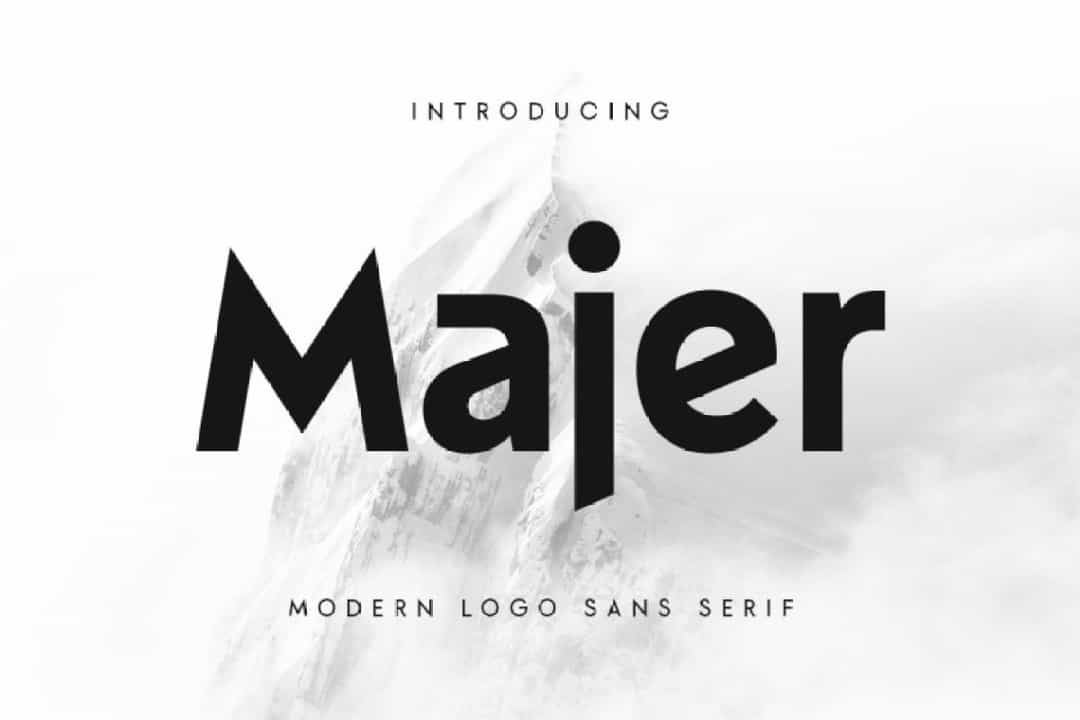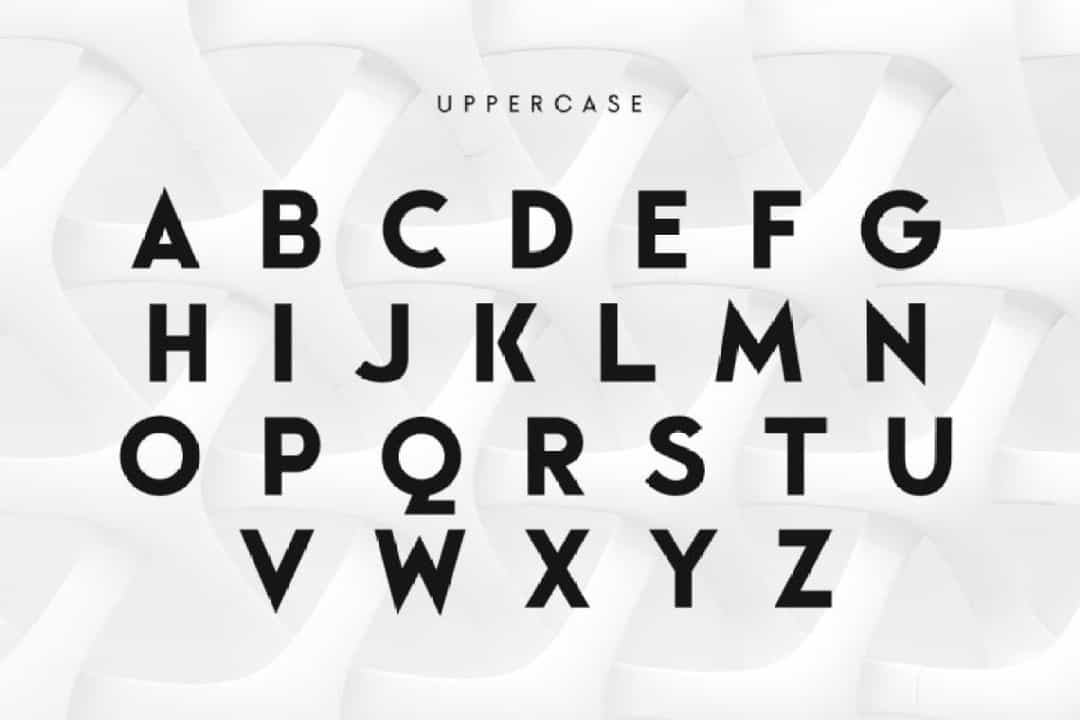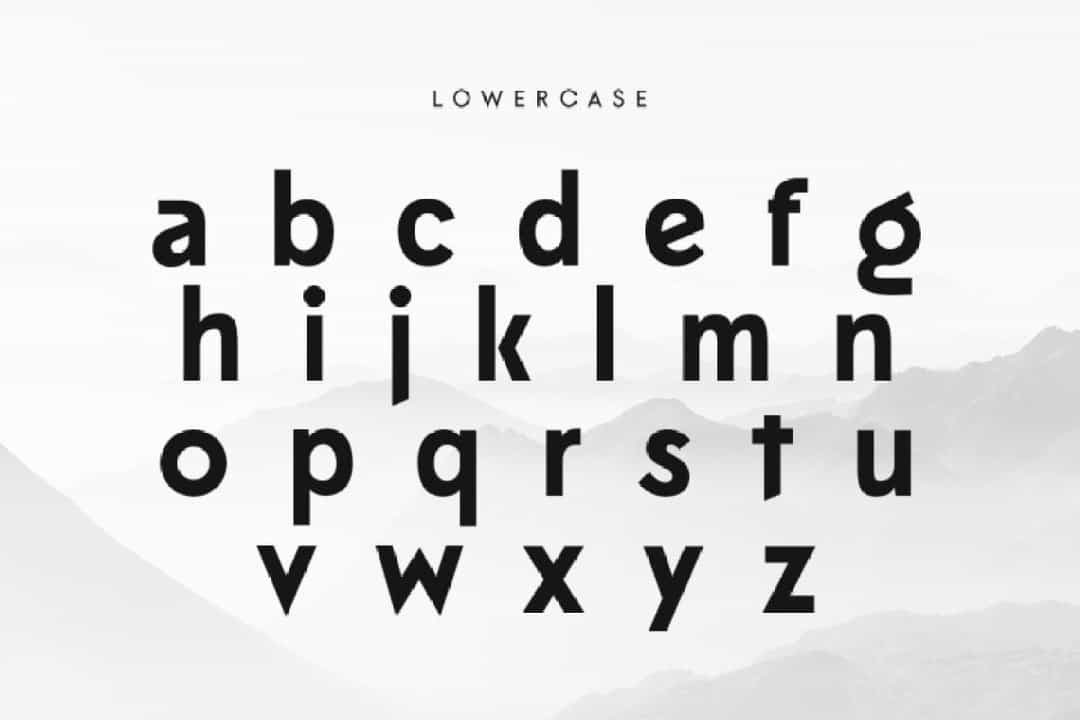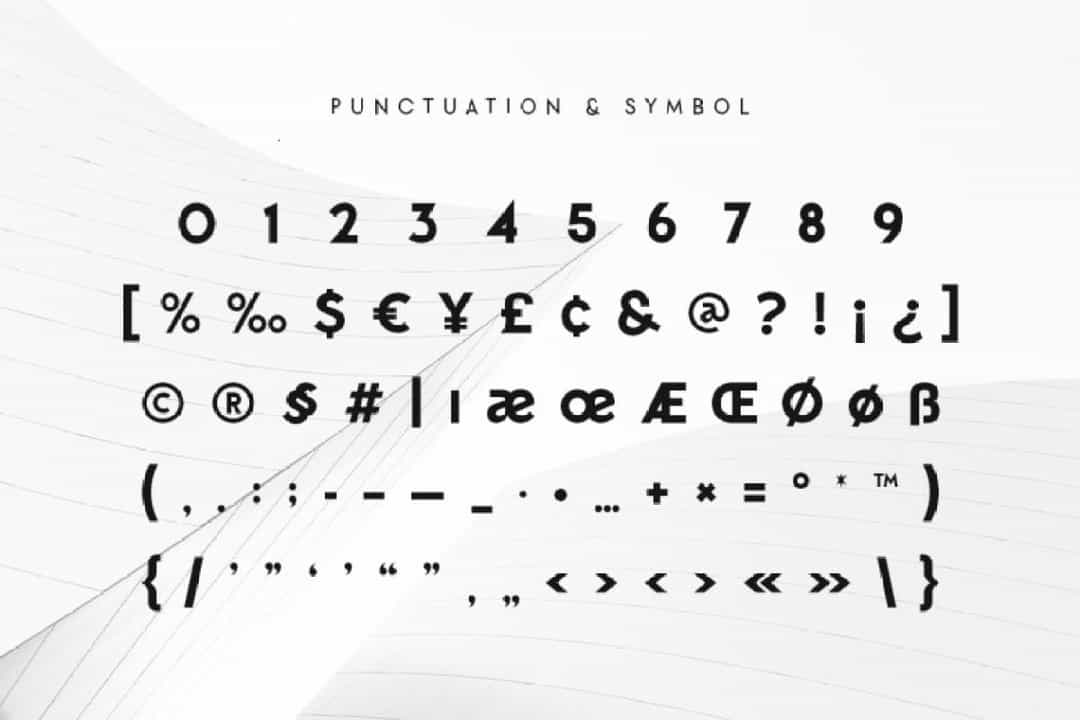
Majer is a sans-serif font for logos with features of modernity, luxury, elegance, and uniqueness of the classic style. This font crafted specials for logo design projects and can be used for Logo, Branding, Magazine, social media and many more that require the modern look.